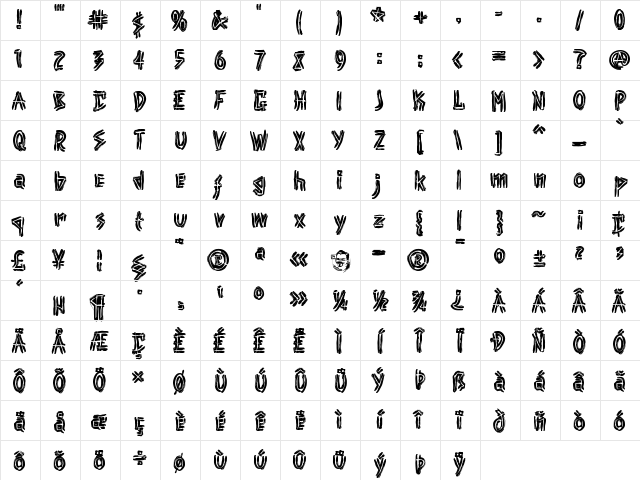
Punk Regular Free Font
Punk Regular
Design Context for Punk
Punk is a composed and adaptable typeface that performs quietly and consistently across a wide range of design contexts.
Pro Tip: Use Punk in both headline and body roles to test its range before committing to a single application.